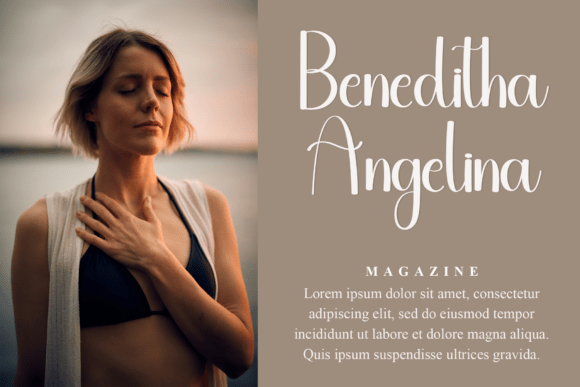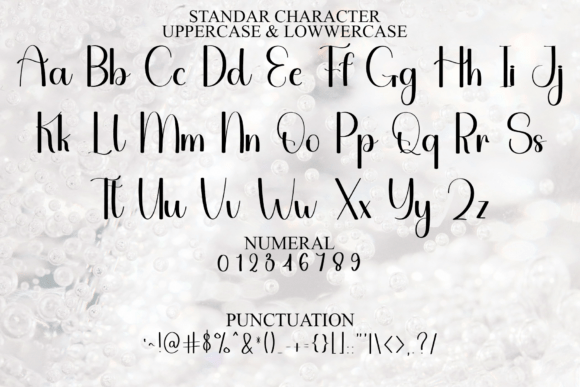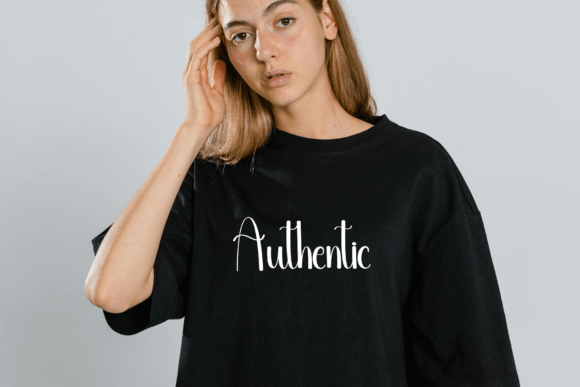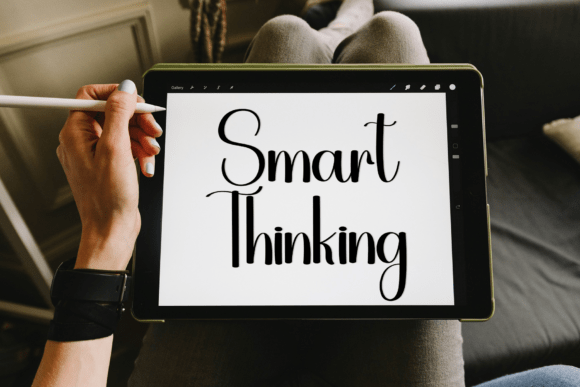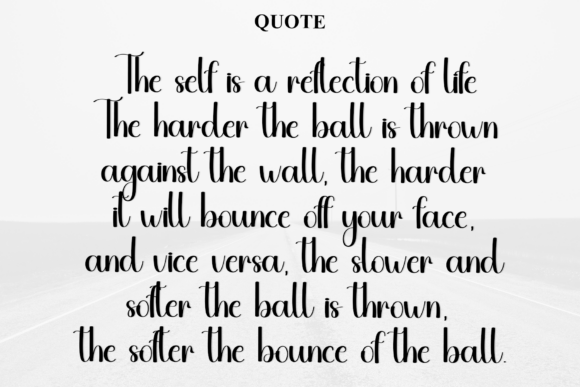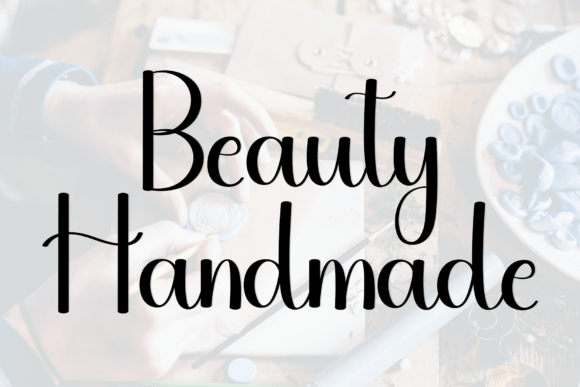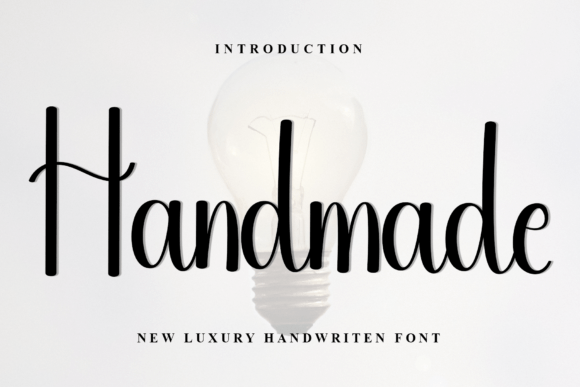
Introducing Handmade Font: The Timeless Choice for Creative Designs
Are you a designer or crafter looking for a unique and eye-catching font to elevate your creative projects? Look no further than Handmade Font, a lovely and timeless handwritten font that is sure to bring your designs to life. With its beautiful and distinctive touch, Handmade Font is the perfect choice for creating stunning logos, branding, and quotes that will leave a lasting impression.
The Unique Charm of Handmade Font
What sets Handmade Font apart from other fonts is its one-of-a-kind, handcrafted feel. Every letter has been carefully crafted to have a unique and beautiful touch, giving your designs a personal and humanizing quality that is hard to replicate with digital fonts. The result is a font that exudes warmth, character, and personality, making it perfect for designs that require a personal touch.
Handmade Font is incredibly versatile and can be used for a wide range of design projects. Whether you’re creating a logo, branding materials, or inspirational quotes, this font is sure to make your designs stand out. Its elegant and flowing script is perfect for creating eye-catching headlines, titles, and taglines that will grab attention and leave a lasting impression.
Why Choose Handmade Font?
So why choose Handmade Font over other fonts? Here are just a few reasons why this font stands out:
- Unique and distinctive: Every letter has a unique and beautiful touch that sets it apart from other fonts.
- Timeless appeal: Handmade Font has a timeless quality that will never go out of style.
- Versatile: Perfect for a wide range of design projects, from logos and branding to quotes and more.
- Elegant and sophisticated: Adds a touch of elegance and sophistication to any design.
Tips for Using Handmade Font
In conclusion, Handmade Font is a truly unique and special font that is sure to elevate your designs to the next level. With its timeless appeal, elegant script, and distinctive touch, it’s the perfect choice for designers and crafters looking to add a personal touch to their creative projects. Whether you’re creating logos, branding materials, or inspirational quotes, Handmade Font is sure to make your designs stand out. So why wait? Give Handmade Font a try today and see the difference it can make!